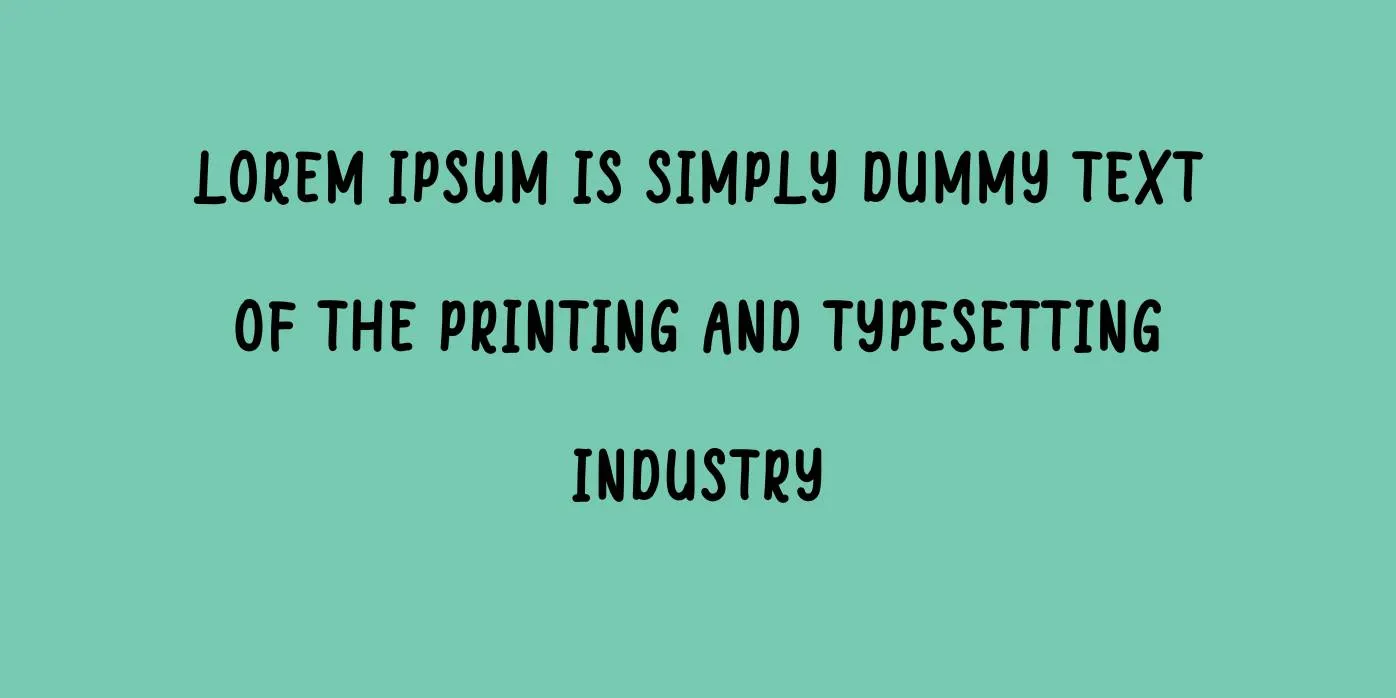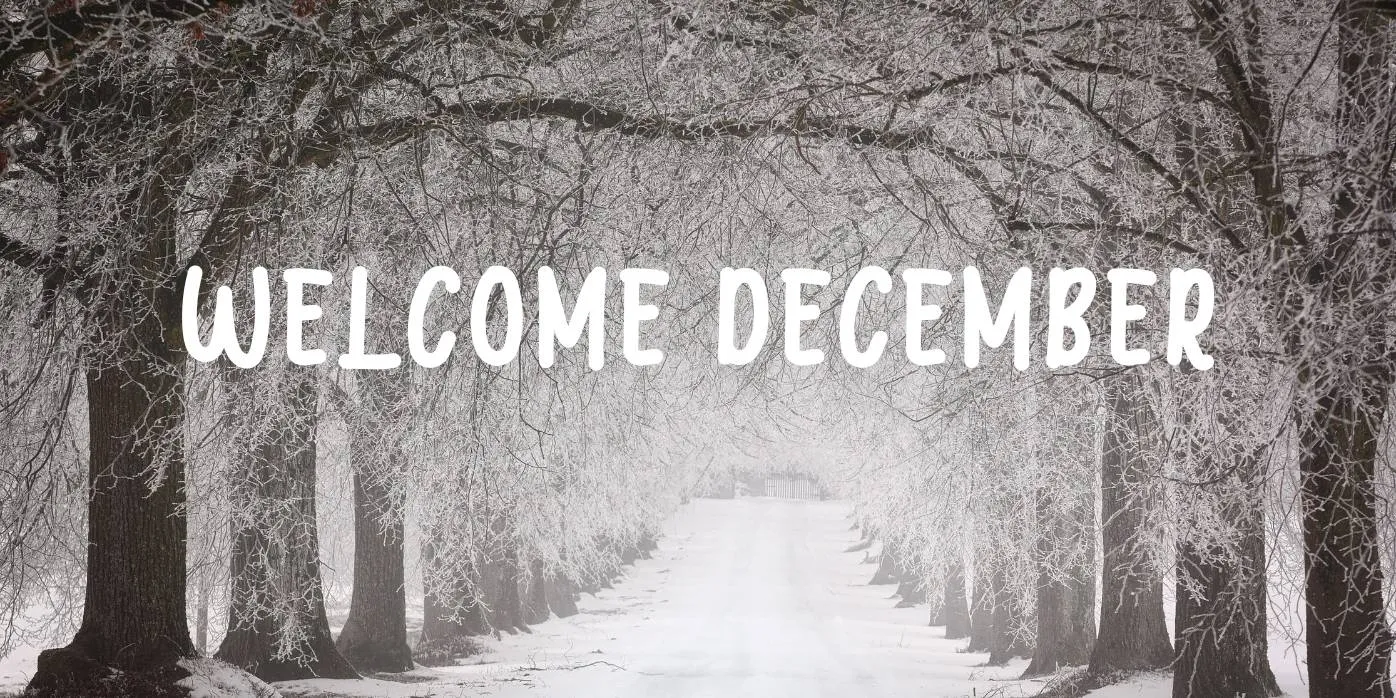
Welcome December Font
Here we discuss a unique and amazing typeface Welcome December Font. This beautiful handwritten font was designed by Andi Moz. You can make so many different projects by using this font. It has different features which make it very useful especially for December.
You just copy and paste your text and you see amazing results online. It contains 148 characters, 97 glyphs, and 1000 units per Em. The weight of the font is normal and its width is medium normal. Unicode supported is 2.0 and BMP only.
You can also use this font for pairing with other fonts like midnight valentines font to give a more attractive look to your projects. Usage This font is very special because it can be used to design different projects. It is also connected to the Chirsmats which’ is why it is used all over the world. This event is also celebrated in December.
You can make attractive banners, posters, flyers, and brochures by using this font. To make invitation cards for different events related to the month of December you can use this font as well. It can be used for both print and digital media. For making attractive website and graphic designs you can use this font as well.
You can you it on different types of graphic applications like Adobe Photoshop, CSS, Canva, and other Illustrators. It is also good for making beautiful headlines. You can make eye-catching logos and titles for different organizations and brands by using this font. For product packing and themed party decoration, it is also considered a very nice font.
FAQs! Who is the designer of Welcome December Font? This amazing handwritten font was designed by Andi Moz. You can make attractive designs by using a font.
You can make attractive logos, greeting cards, banners, posters, and much more.